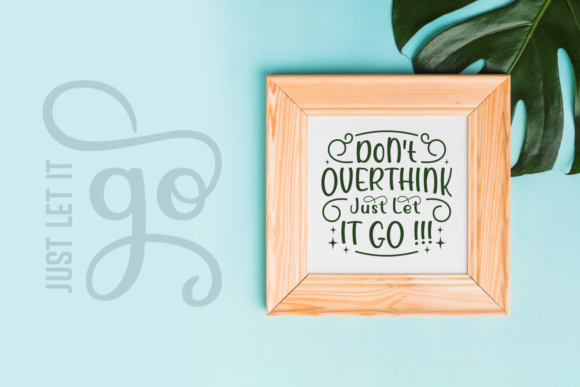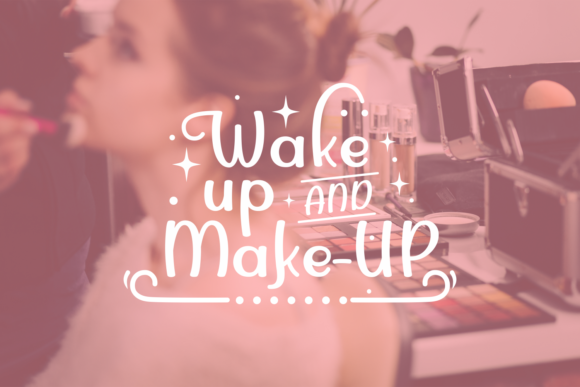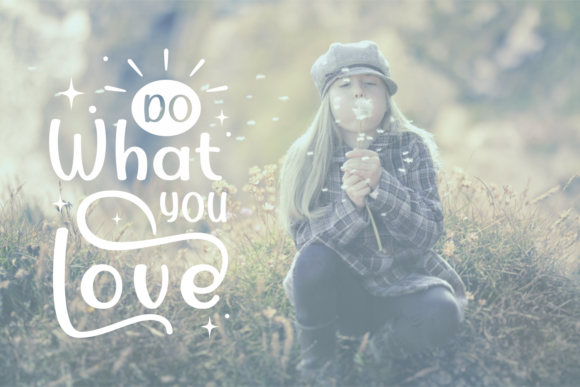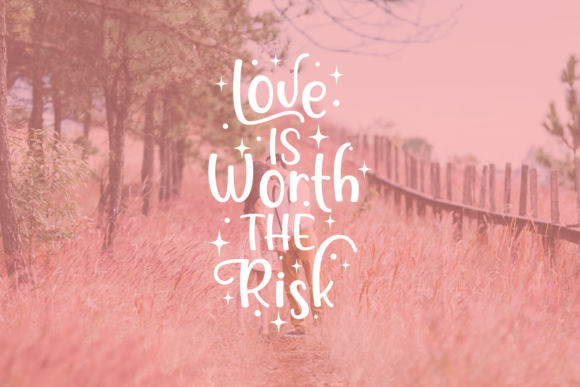
HomeScript FontsPodo Moro Font Script Fonts Podo Moro Font FacebookXPinterestWhatsApp Podo Moro Font Poster 2 Podo Moro Font Poster 3 Podo Moro Font Poster 4 Podo Moro Font Poster 5 About Podo Moro Font Podo Moro is a hand drawn modern typeface created by Rifki DOWNLOAD ON CREATIVE FABRICAThis font is sold and delivered by Creative Fabrica. Font Canyon may earn a commission if you buy through this link. People also explored Basyirah Font Glennda Family Font Charlie Shyanne Font Eternity Font Memon Monogram Font Good Feeling Font Juneteenth Font Melanie Font Carmila Font 325 0 TagsPodo Moro Font Previous articleSmonthia Script FontNext articleTaste of Desires Font LEAVE A REPLY Cancel reply Comment: Please enter your comment! Name:* Please enter your name here Email:* You have entered an incorrect email address! Please enter your email address here Website: Save my name, email, and website in this browser for the next time I comment. Personal Use Free Mustica Personal Use Free Read more about this font Hair Thinned Personal Use Free Read more about this font Salmoni Personal Use Free Read more about this font Welcome Creative Personal Use Free Read more about this font BLOG Free Fonts Risk: Why Free Fonts Can Be Dangerous for Designers Free Fonts Risk: Why Free Fonts Can Be Dangerous for Designers Using free fonts is a common practice in web and graphic design. However, the... Elegant Wedding Invitation Fonts – Handwritten & Script Fonts To increase your work productivity, choose the most readable fonts. How to Install and Use Fonts on Windows, macOS, and Web Projects